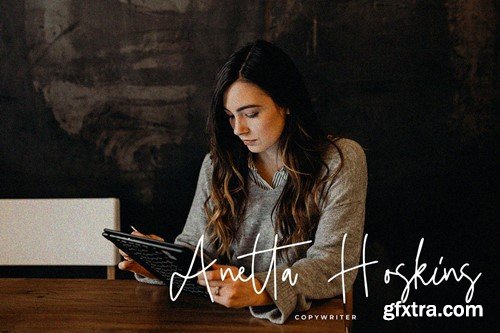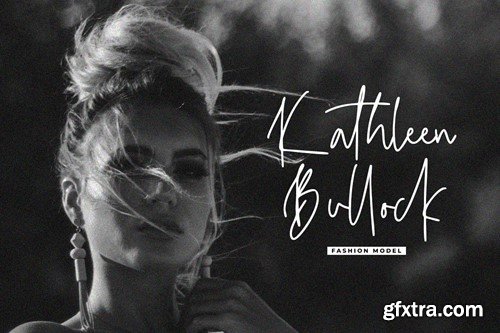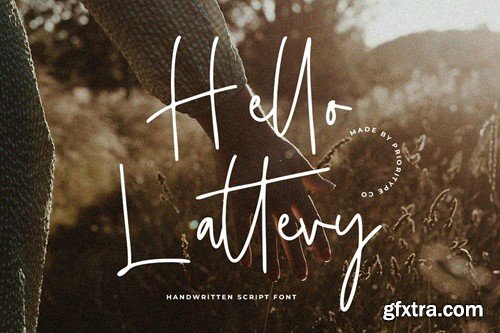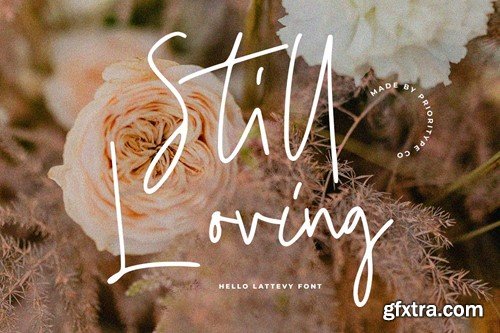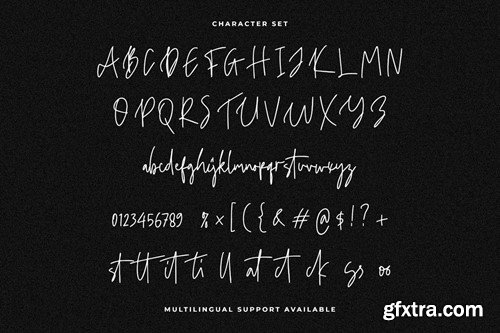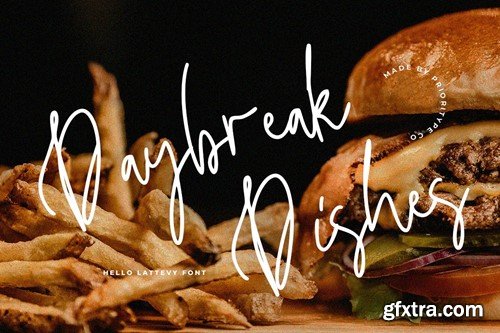
你好 Lattevy - KHG3PCQ 手写体字型
Hello Lattevy - Handwritten Script font KHG3PCQ
Hello Lattevy - Handwritten Script font
Introducing Hello Lattevy. A mesmerizing freehand script font radiating elegance and charm. Tailored for branding, logos, and wedding invitations, its captivating strokes add a touch of allure to your projects. Elevate your designs with the enchanting style of "Hello Lattevy" and leave a lasting impression with every stroke
• Features: Uppercase, Lowercase, Numeral, Punctuation, Multilingual & Ligatures.